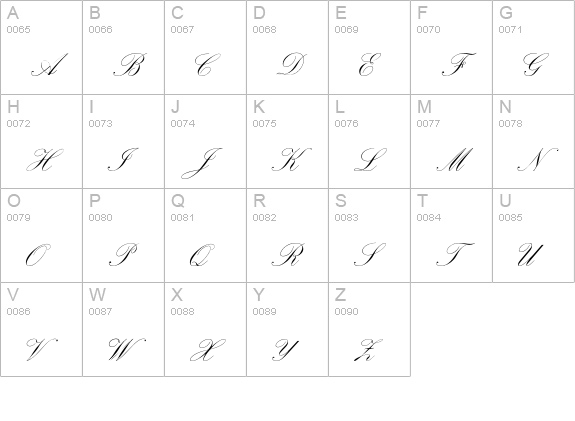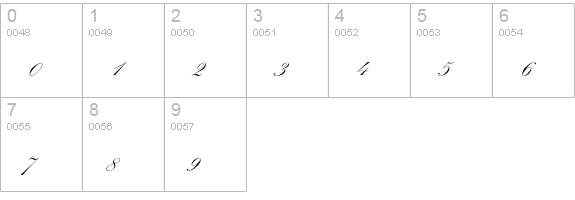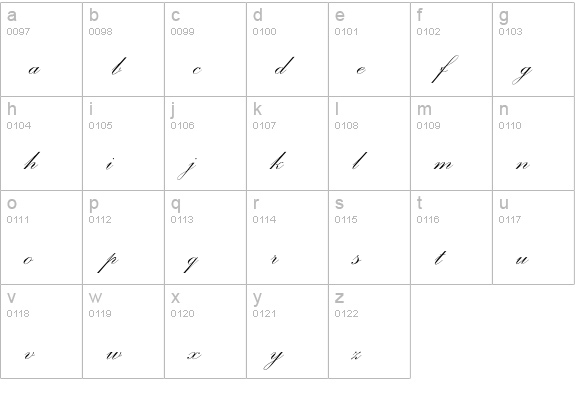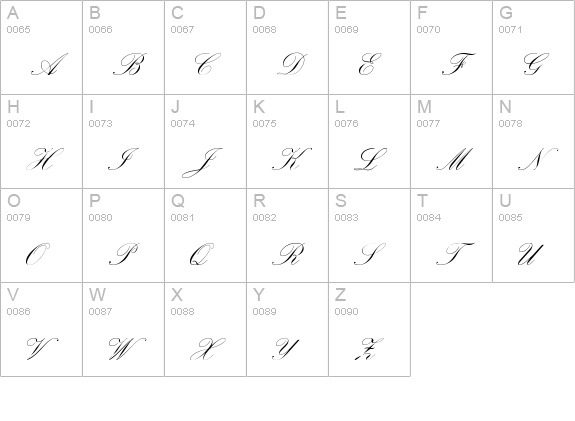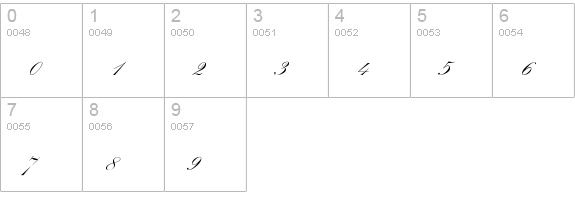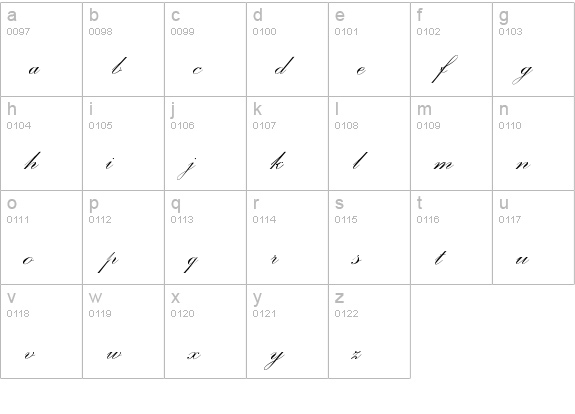
Palace Script is an elegant and sophisticated font that exudes a sense of grandeur and opulence. Its flowing and graceful letterforms make it perfect for adding a touch of refinement to any design project. Whether you're creating wedding invitations, event flyers, or luxury branding, Palace Script will elevate your work to new heights. The best part about Palace Script is that it is available for free download at FontsMarket.com. This means that you can easily access this beautiful font without any cost, making it a valuable addition to your font library. Embrace the luxurious charm of Palace Script in your designs today and watch as your projects come to life with a touch of regal flair.